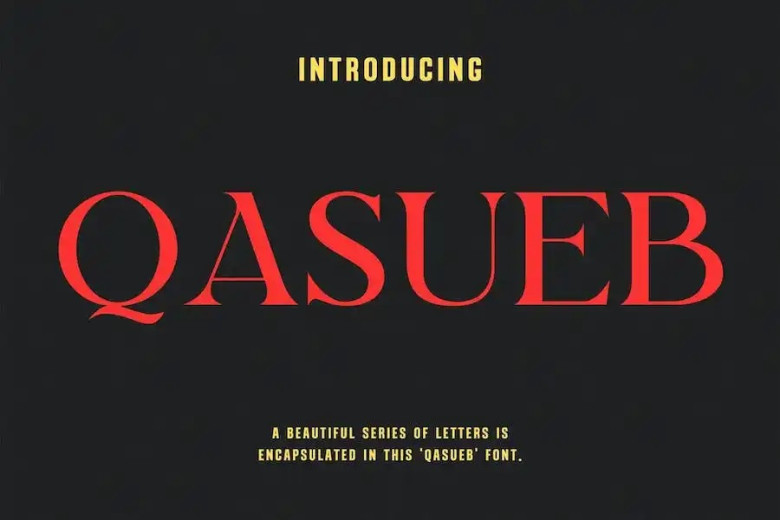
Qasueb Font
Qasueb font is a distinguished and elegant font to use when designing logos and branding. Combining sophistication with chic style, this sophisticated serif typeface is suitable for logos, branding and wedding designs, additionally it can also be used for advertising posts, social media posts, packaging, product designs,
labels, photography, watermarks, invitations, stationery as well as any project requiring high readability – you won’t be disappointed if you purchase it! You won’t regret buying it.
Qasueb Serif Font